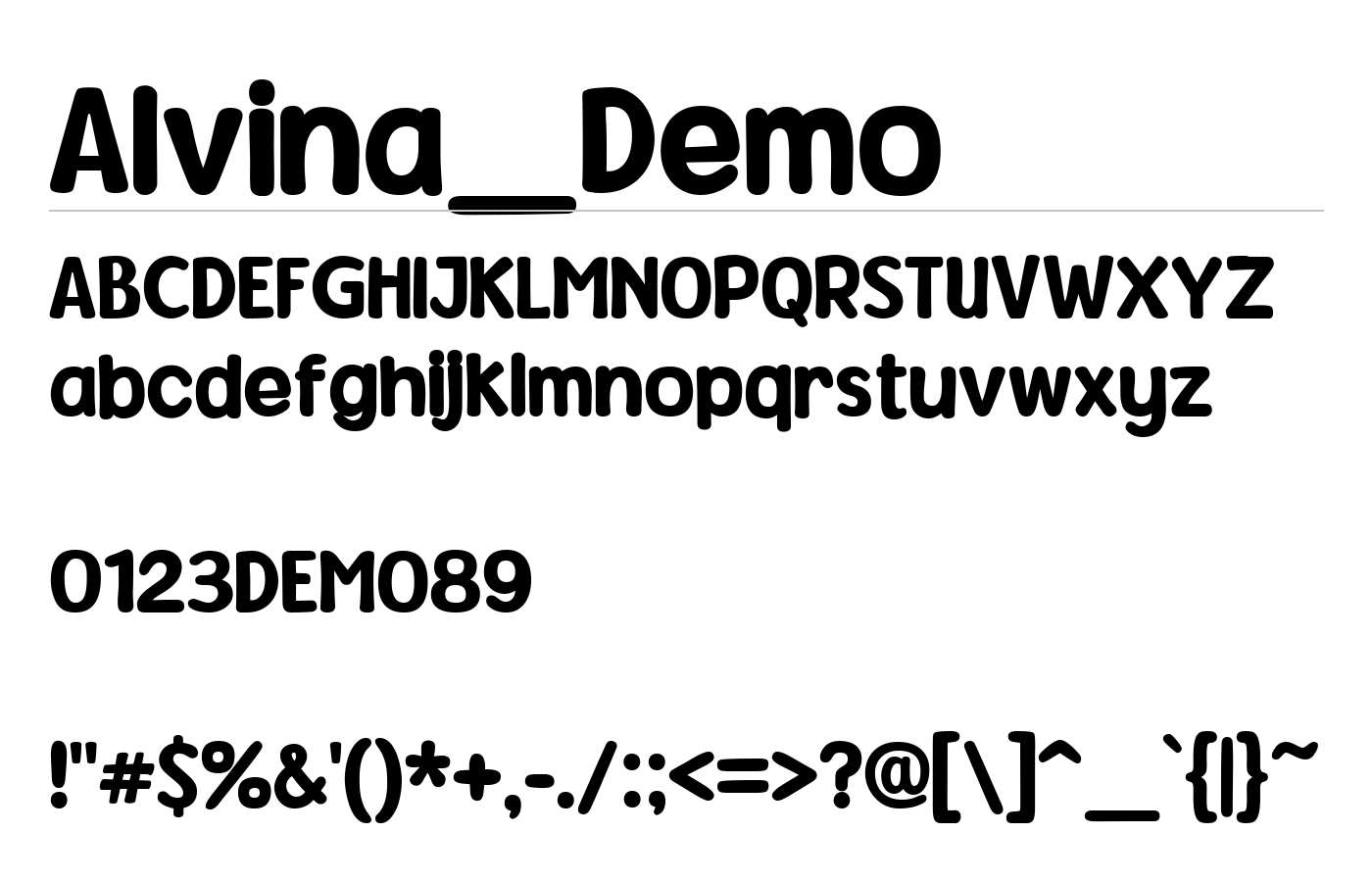
Alvina_Demo is a bold, playful sans serif font with rounded edges and a friendly, approachable character. Its slightly condensed forms and medium x-height create a balanced, legible feel that works well for casual branding, children’s materials, and informal headlines. This font brings an inviting and cheerful tone, making it ideal for projects that want to communicate warmth and creativity.
Alvina_Demo Font
About Alvina_Demo Font
| Font family | Alvina_Demo Font |
| Designer | Almaz Studio™ |